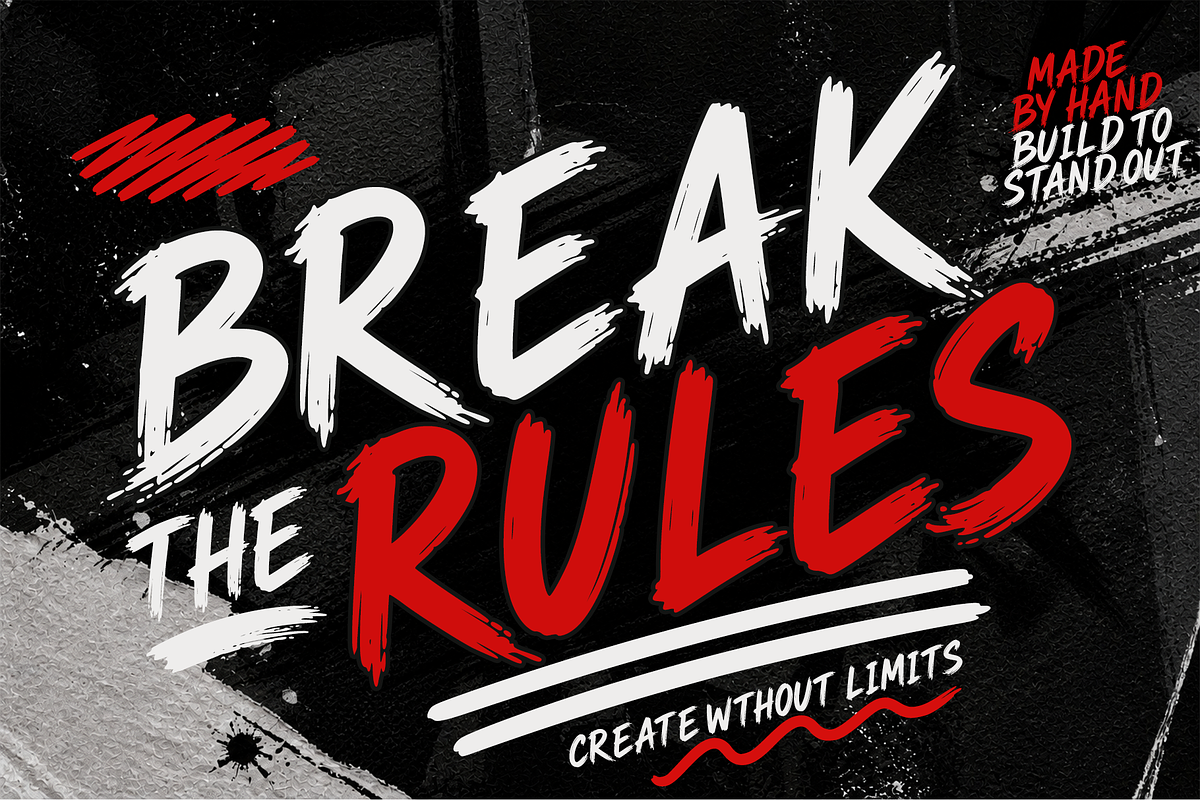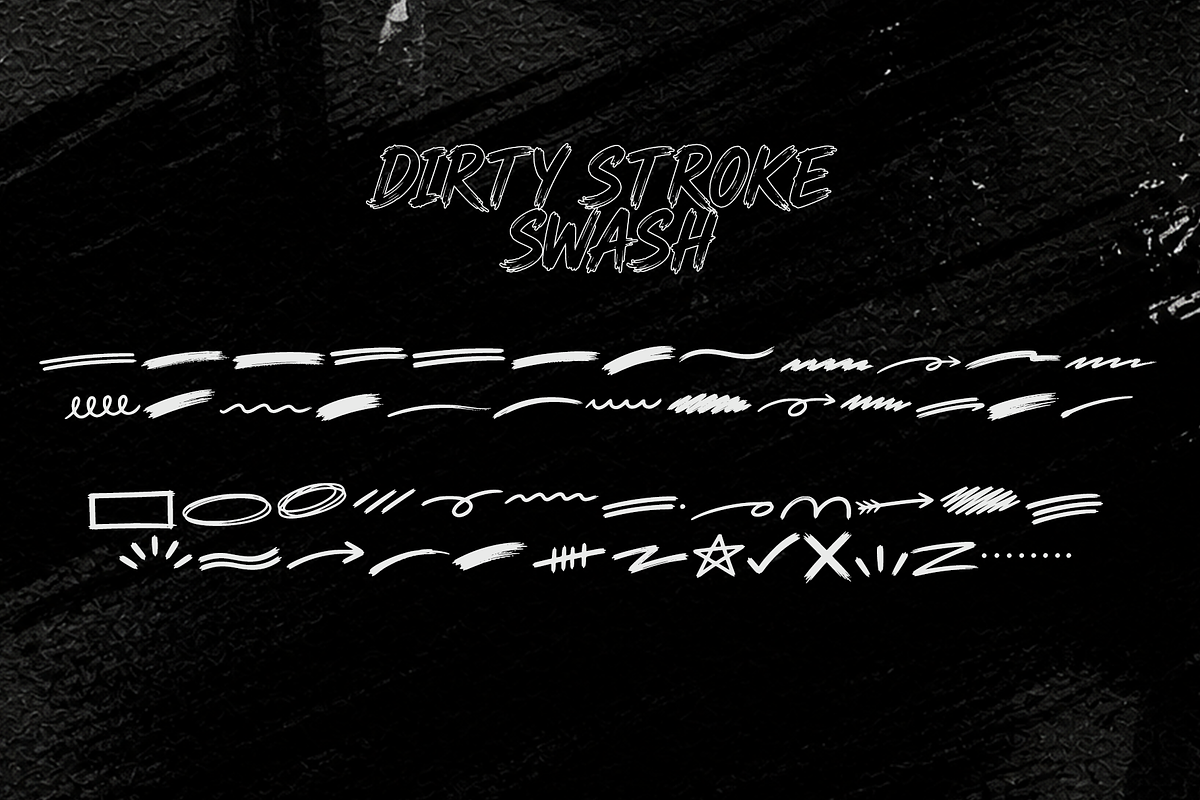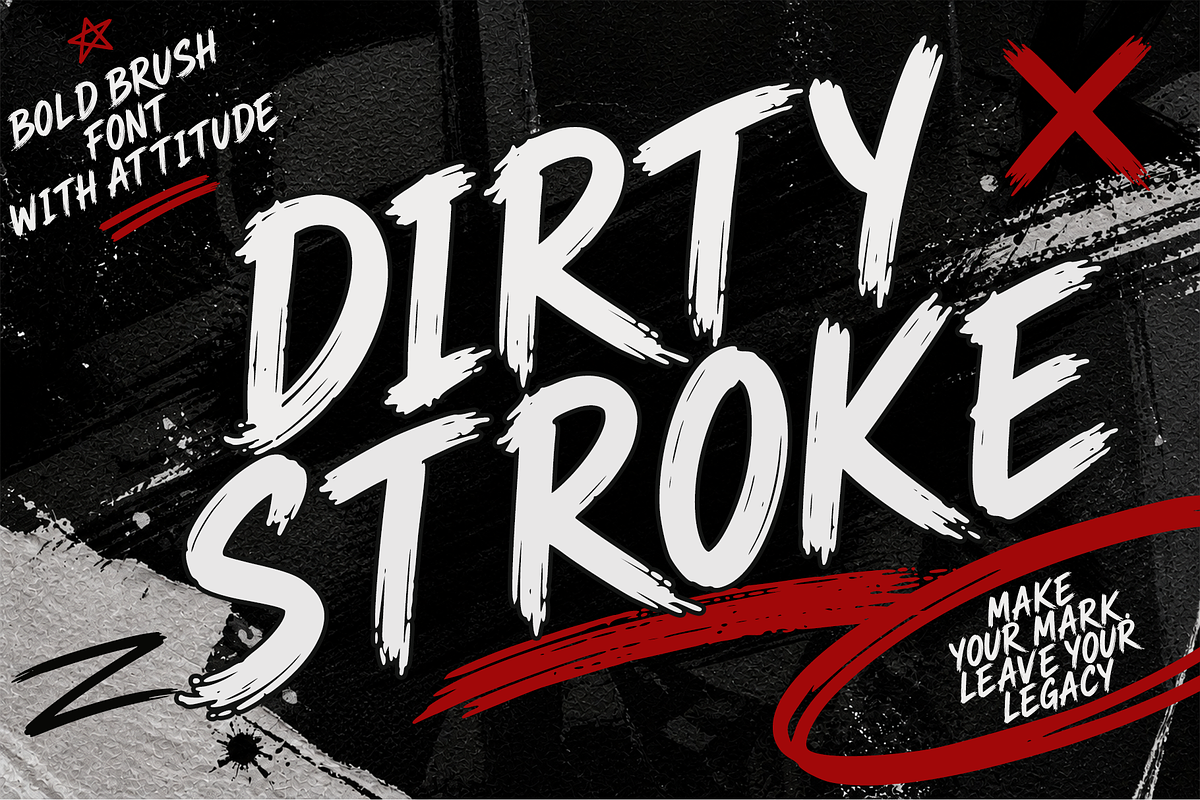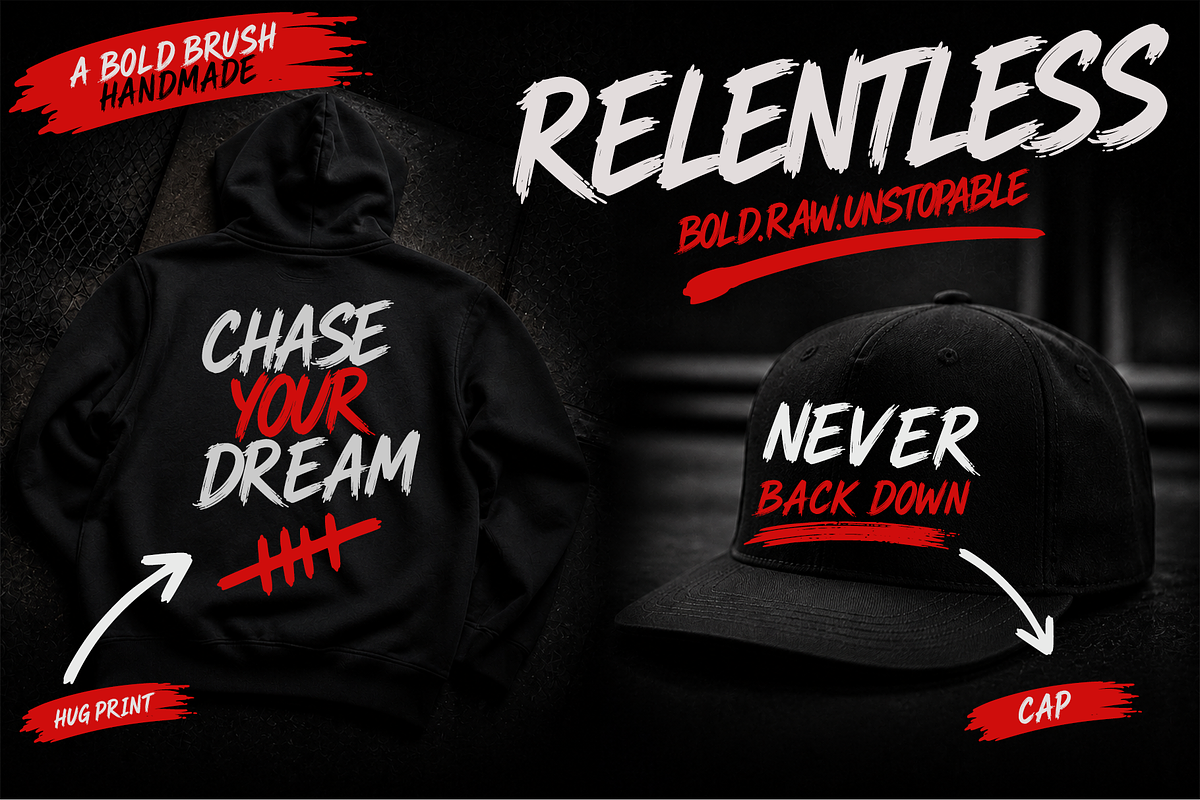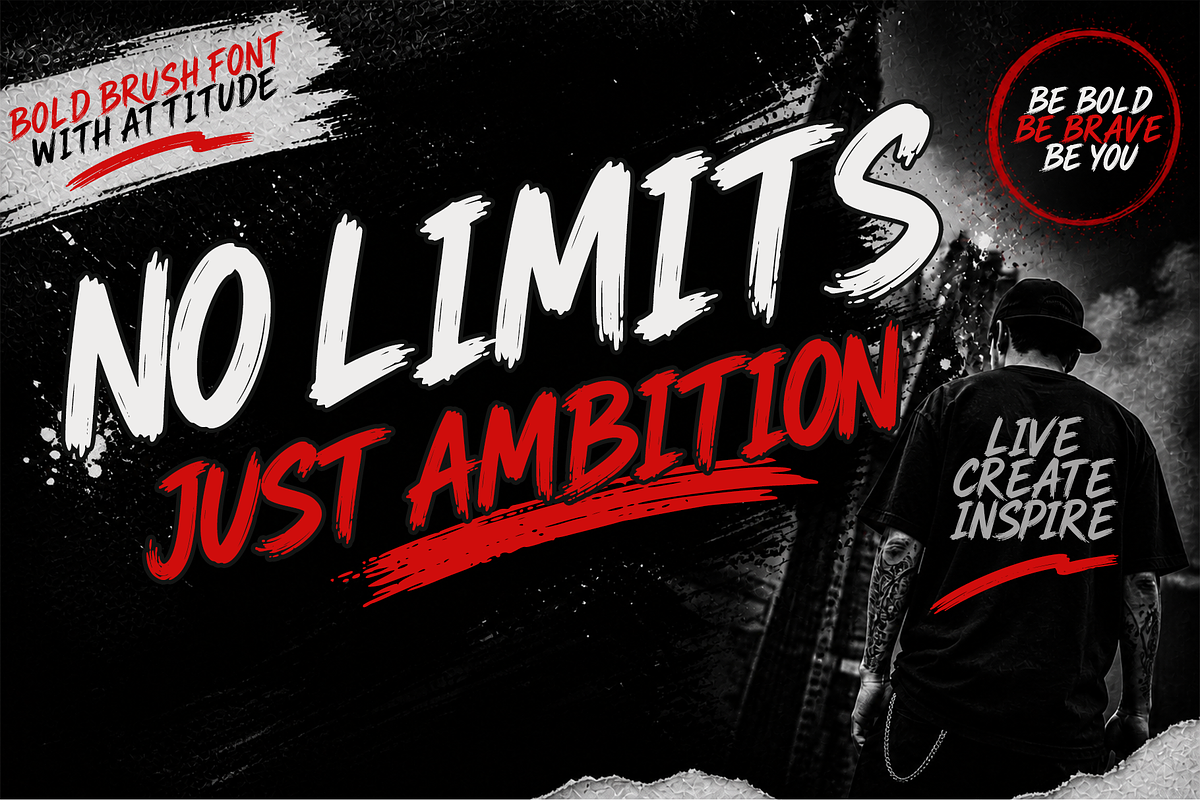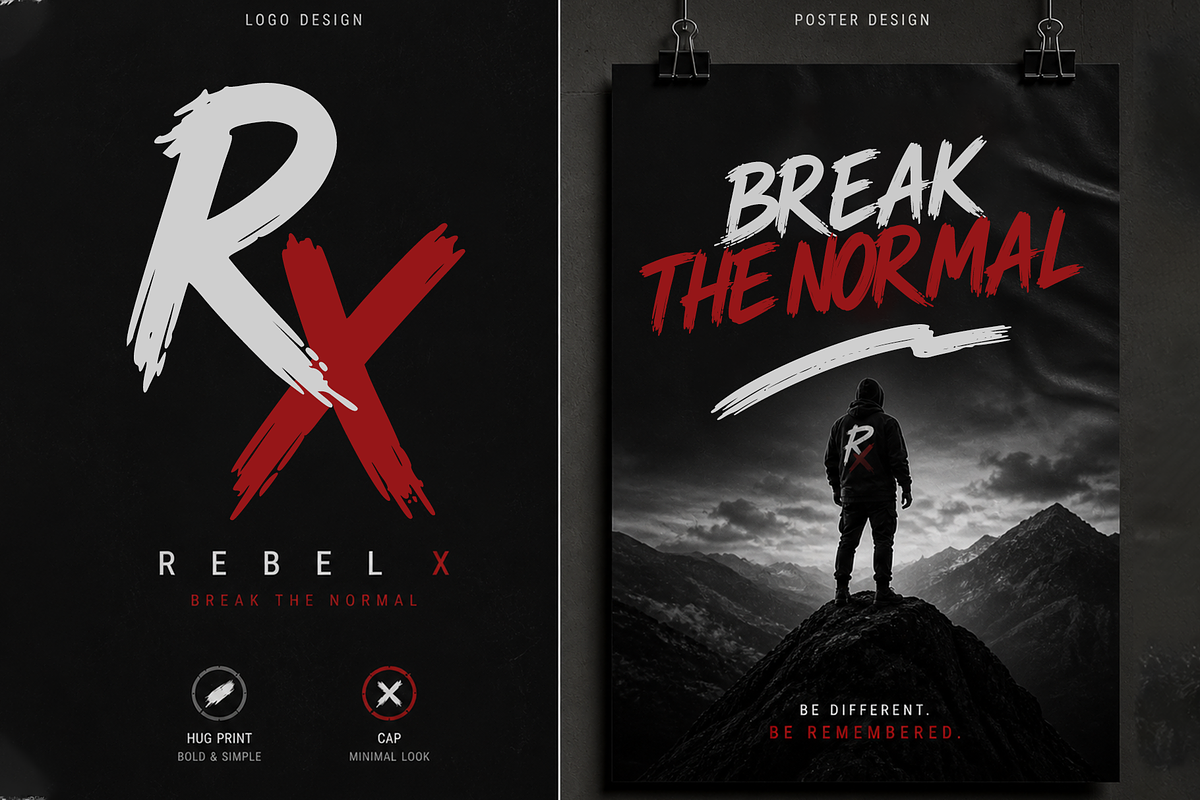
Dirty Stroke
Dirty Stroke is a bold and expressive brush font crafted from rough, hand-painted strokes and enhanced with extra swash elements. The textured edges and dynamic forms create a strong, gritty look that instantly grabs attention.
The additional swashes give more flexibility in design, allowing you to create striking compositions, bold headlines, and eye-catching typography with ease. Every letter carries an energetic and raw feel, making it perfect for designs that need a powerful visual presence.
Ideal for a wide range of creative projects, Dirty Stroke works perfectly for branding, posters, merchandise, and digital content that demand a bold and edgy style.